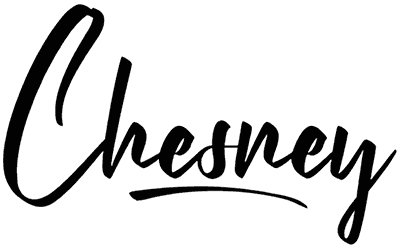
Chesney Font
For having a casual and manual context, Chesney is a graceful pickup. This handwritten font can be a nice design for words of a modern poster or vintage banner, and a lot more projects that you try to make salient. No offer for numeral and punctuation marks, but Chesney can work and combine well with any design and subject.